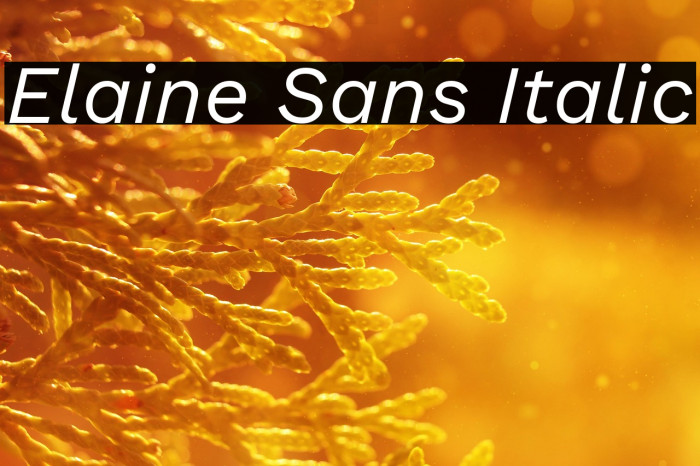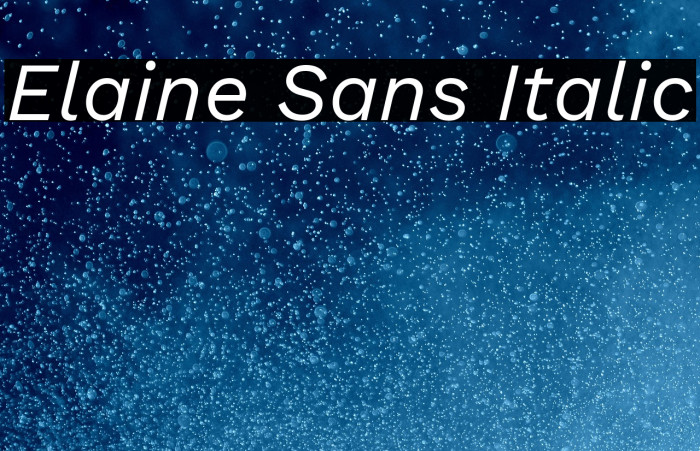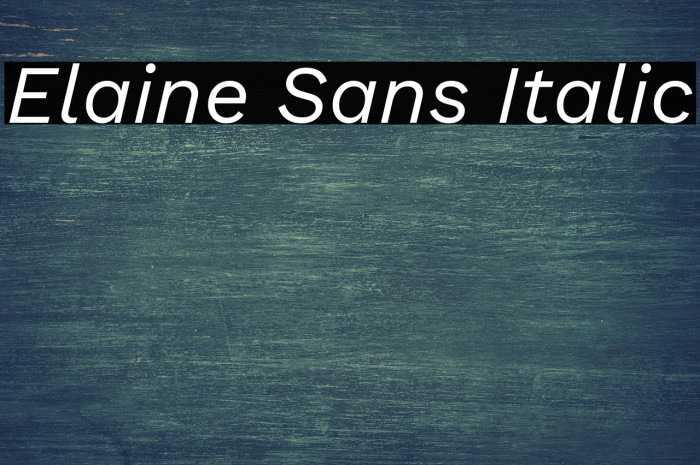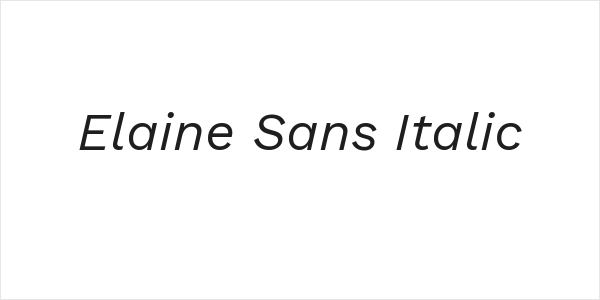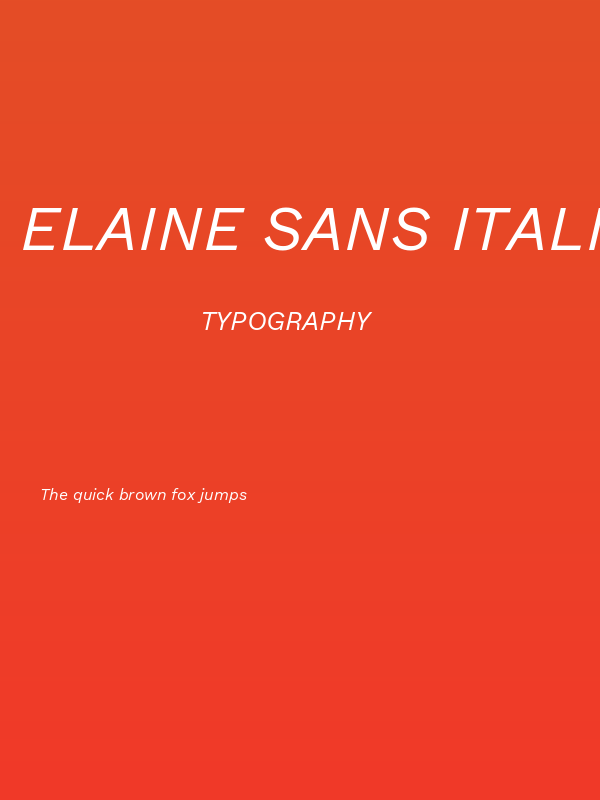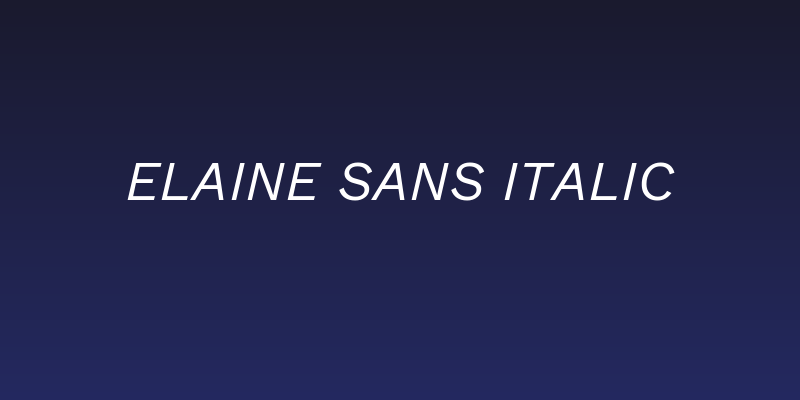
Elaine Sans Italic Font
Elaine Sans Italic Description
This font features a clean and modern sans-serif design with a subtle italic slant, giving it a dynamic and elegant appearance. The characters are well-proportioned, with smooth curves and a consistent stroke width that enhances readability. Its simplicity and clarity make it versatile for various design applications. The numerals and special characters maintain the same sleek aesthetic, ensuring uniformity across different text elements. The font's overall style is contemporary, making it suitable for both digital and print media.
| Proposed Projects | Ideal for branding, editorial design, web design, and advertising materials. |